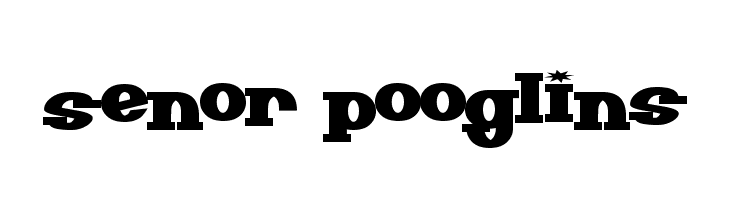
A bold, space-themed font with playful star cutouts and geometric shapes.
A futuristic, geometric font with a digital, mechanical aesthetic.
A futuristic, geometric font with a digital, pixelated style.
A pixelated, dot-based display font with a digital, futuristic style.
A bold, playful font inspired by classic arcade games with geometric shapes.
A bold, rounded font with a playful and modern design.
A playful, heart-themed decorative font with bold characters enclosed in shield shapes.
A bold, decorative font with shield-like backgrounds and diamond embellishments.
A bold, decorative font with a playful, vintage circus theme.
A bold, modern font with a geometric and striking design.